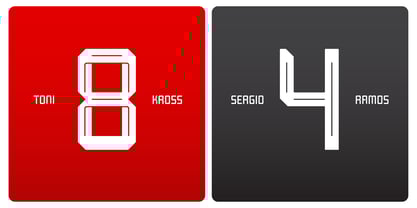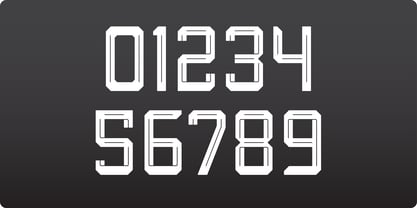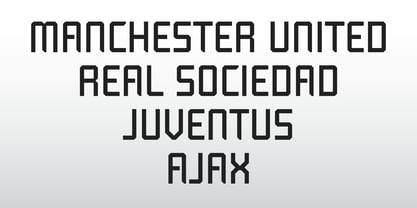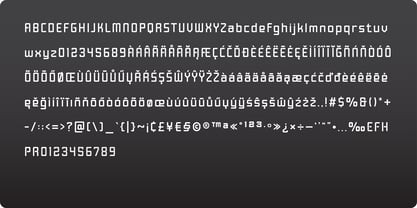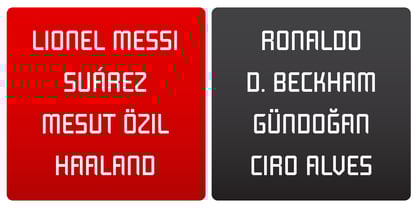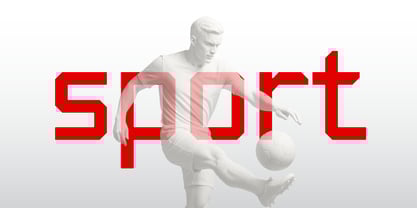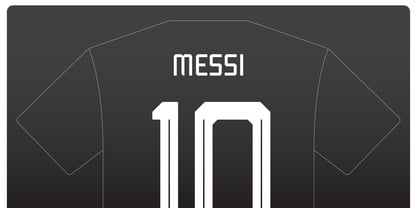
Atlics
von Rhtype
Die Schriftfamilie Atlics wurde von Rizky Herdiansyah entworfen und von Rhtype veröffentlicht. Atlics enthält 1 Stile.
Atlics font is a typeface characterized by its upright lines and sporty style. It embodies characteristics of firmness, boldness, and sportiness. With its straight lines and dynamic appearance, Atlics font exudes a sense of determination and courage. This font is perfect for projects that aim to convey a strong and competitive spirit. Its sporty aesthetics add a touch of energy and vigor to any design, making it a popular choice for sports-related branding, posters, and signage.